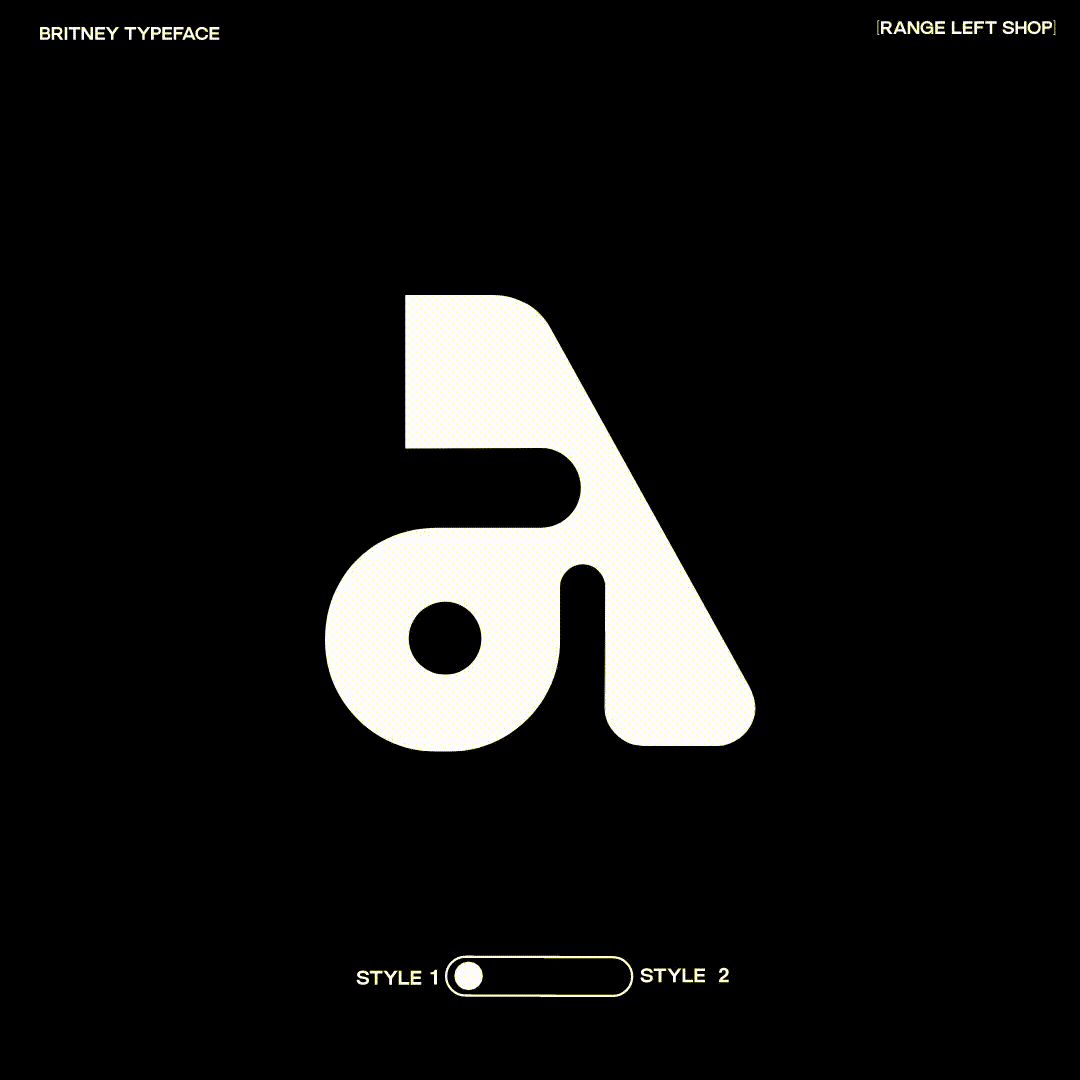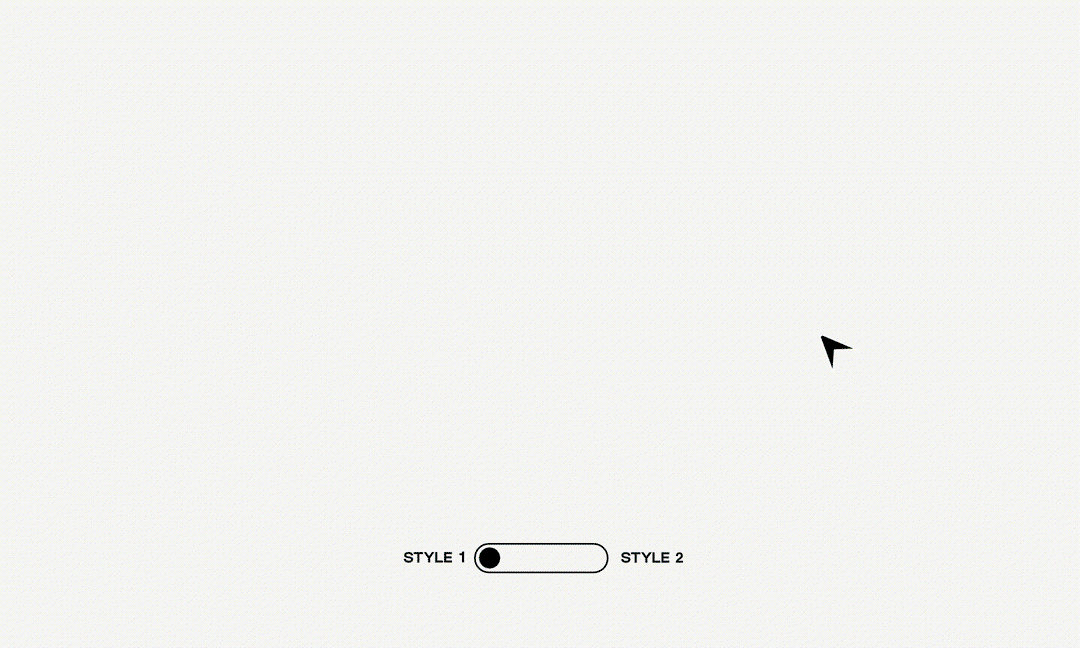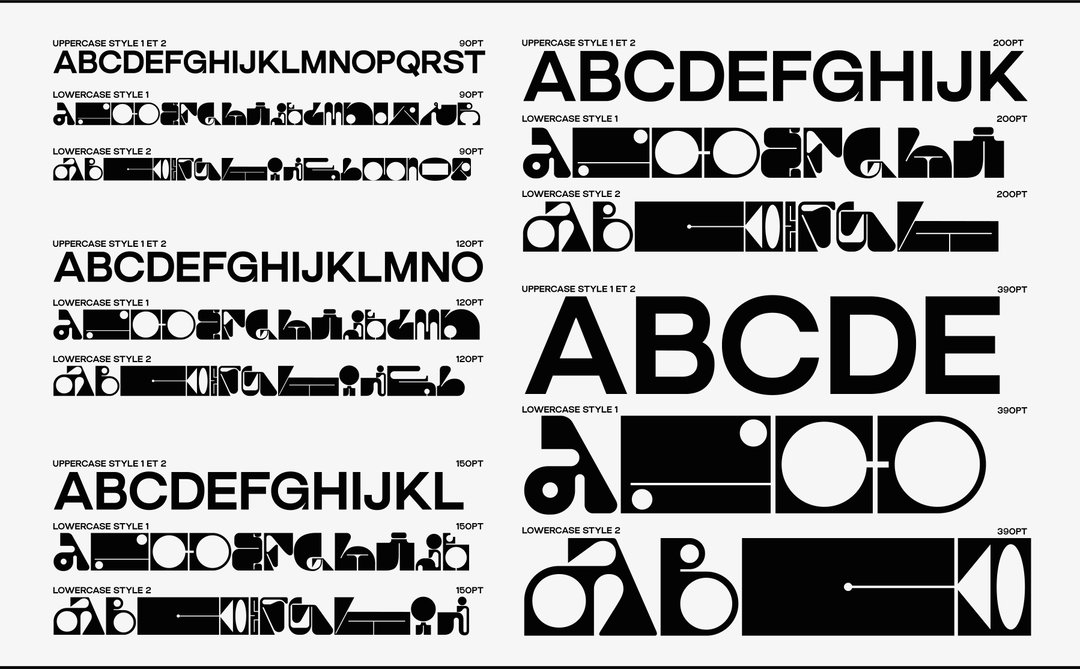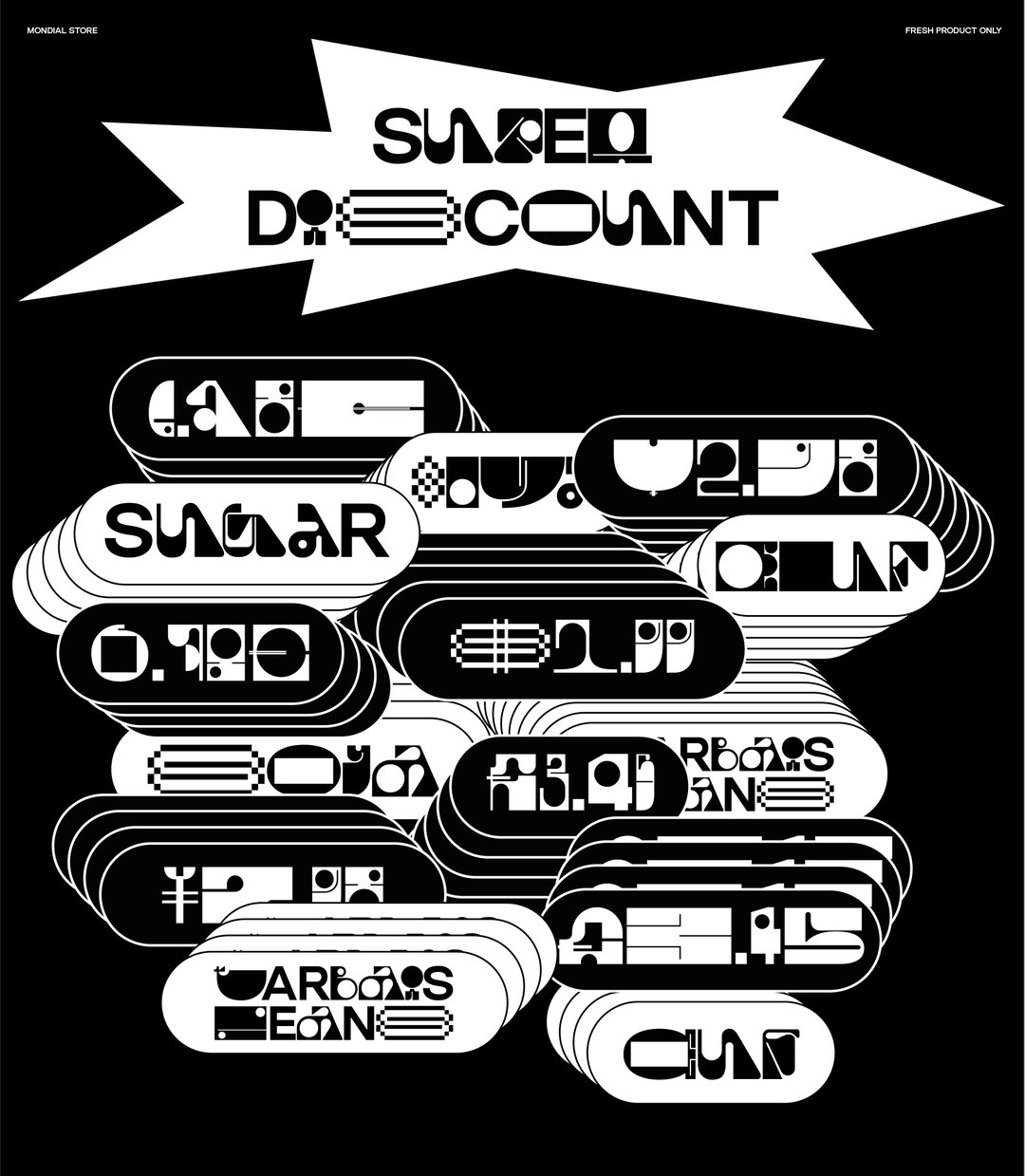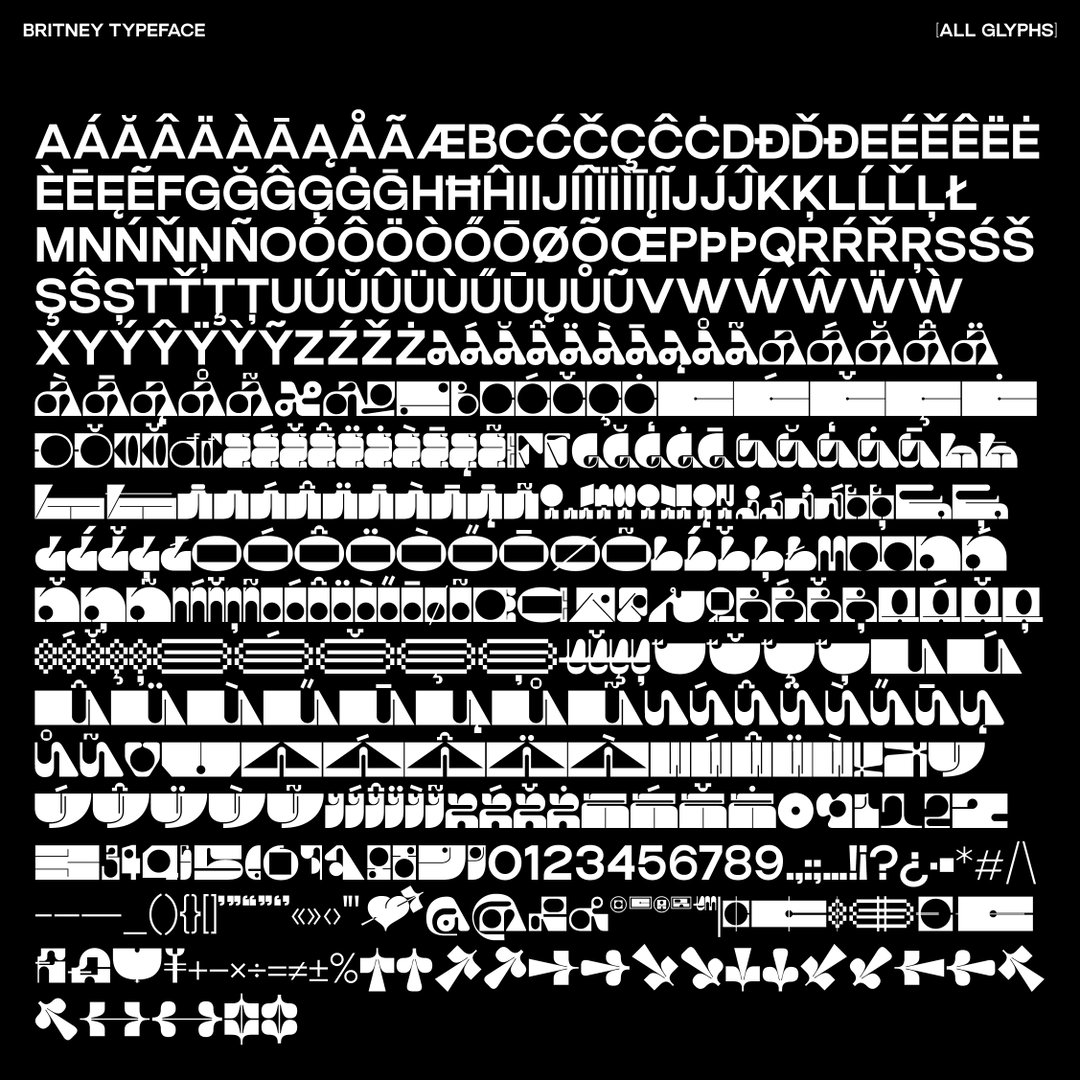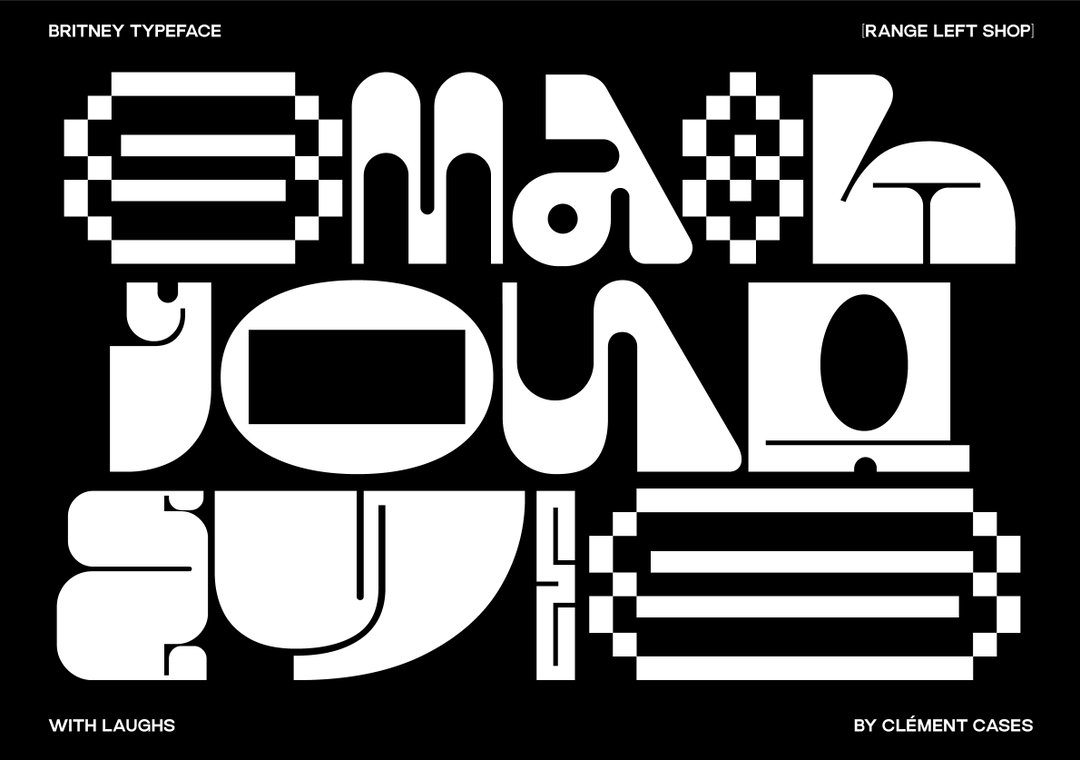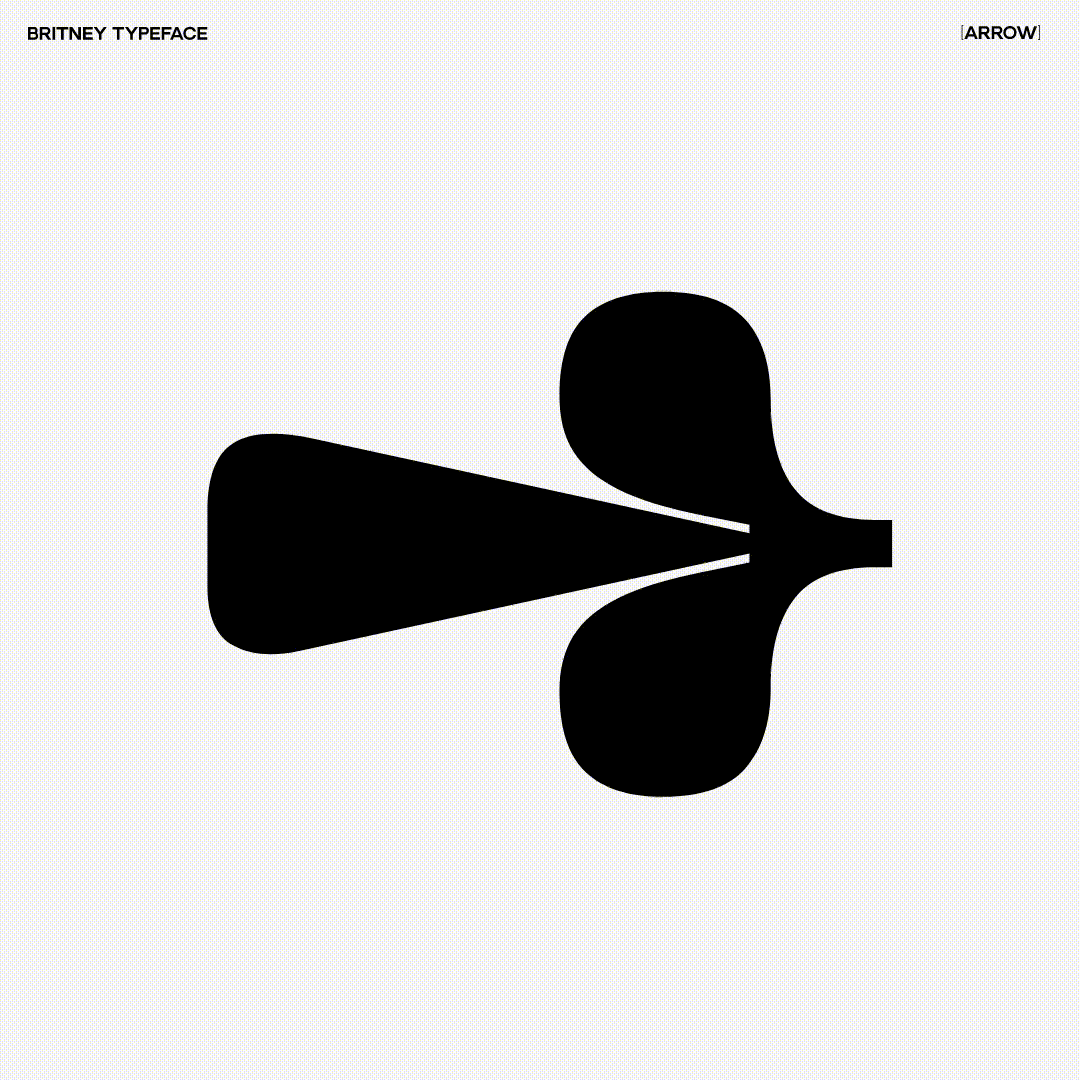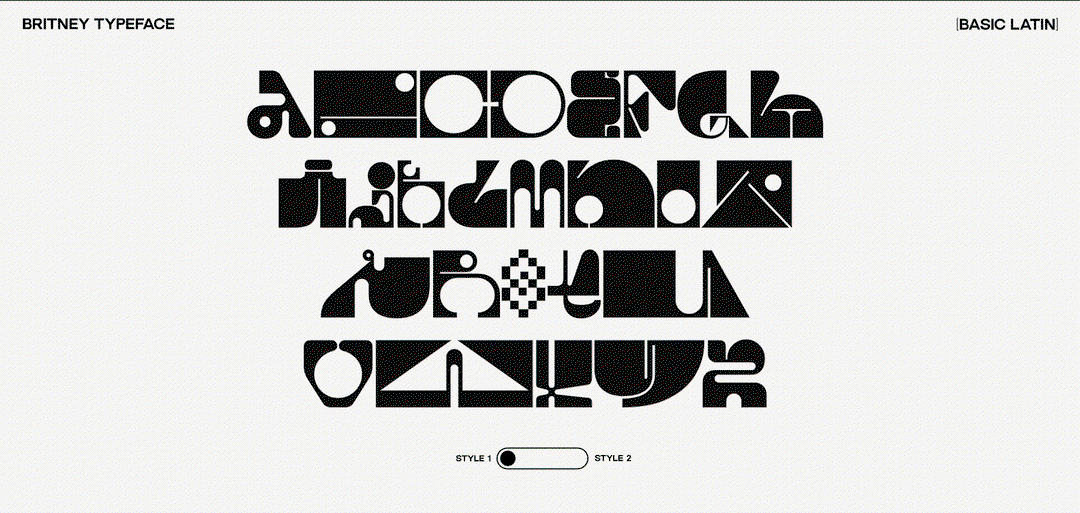
Clement Cases’ new typeface is both eccentric and legible as he creates with designers in mind
The London-based designer takes inspiration from the arts and unusual moments around the city to create a uniquely familiar typeface.
A lover of all things art and design, Clement Cases’ journey started over 15 years ago with a spray paint can and a desire to run wild with letters. Drawn to graffiti for its complex nature, overtime Clement wanted to focus on something more legible, through the creation of “real letters,” he tells us. “One of the things that drew me to typography design was the importance of visibility. With graffiti it’s all about being seen everywhere without people noticing you. With typography I love the idea of leaving my mark in a subtle yet powerful way,” he adds. Now the London-based print and type designer has created a “super-mega-experimental-display-variable typeface” called Britney, consisting of one legible sans-serif font and two eccentric styles.
Each of the letters making up the eccentric logo-esque typeface are both hand-drawn and animated, a “tedious, time consuming and a highly precise task,” he tells us. Starting the project by completing the 36 Days of Type challenge – founded by Barcelona-based graphic designers Nina Sans and Rafa Goicoechea – each day saw him push himself toward his unique perspective in the realm of variable typefaces. “The main challenge was finding different shapes that can work together, but I achieved my goal of combining them in a way that can be harmonious, but also be used independently,” Clement adds. There is a unique rhythm throughout the project, and intentions that can’t be missed. “I am giving designers the opportunity to customise their work and find their own unique approach. I like the idea that the typeface is like a material for the user, where they can compose and play. ”
In turn Britney resembles everything from commonplace activity to nostalgic symbols. The ‘S’ is like the “Cool S” that kids would draw in their books in schools all over, and the ‘J’ looks like a person sitting at a table – making his work equally familiar and refreshing. “My sketchbook is filled with all sorts of quirky and unconventional shapes and letters,” he tells us. A lot of the inspiration behind these sketches he finds in moments of surprise when musing on films – especially Albert Dupontel films – music or peculiar noises and sights he comes across while riding his bike around London. Also, drawing inspiration from the world of graphic design, in the work of individual creatives and agencies alike, he holds the craft of brand identity close as it “truly captivates me and fuels my creativity.”
All in all, Clement is a designer’s designer, keeping his fingers on the pulse of what makes others tick. With another typeface coming out soon for a shop in Bufala, his endeavours have led him to the realm of brand identity that he is so fond of. As for Britney, he has gifted us a style that is an ode to his artistic beginnings, but now it’s tangible, allowing you to create from his playful shapes and compositions.